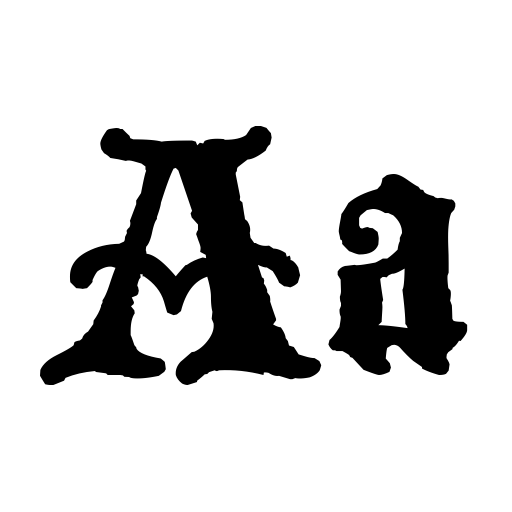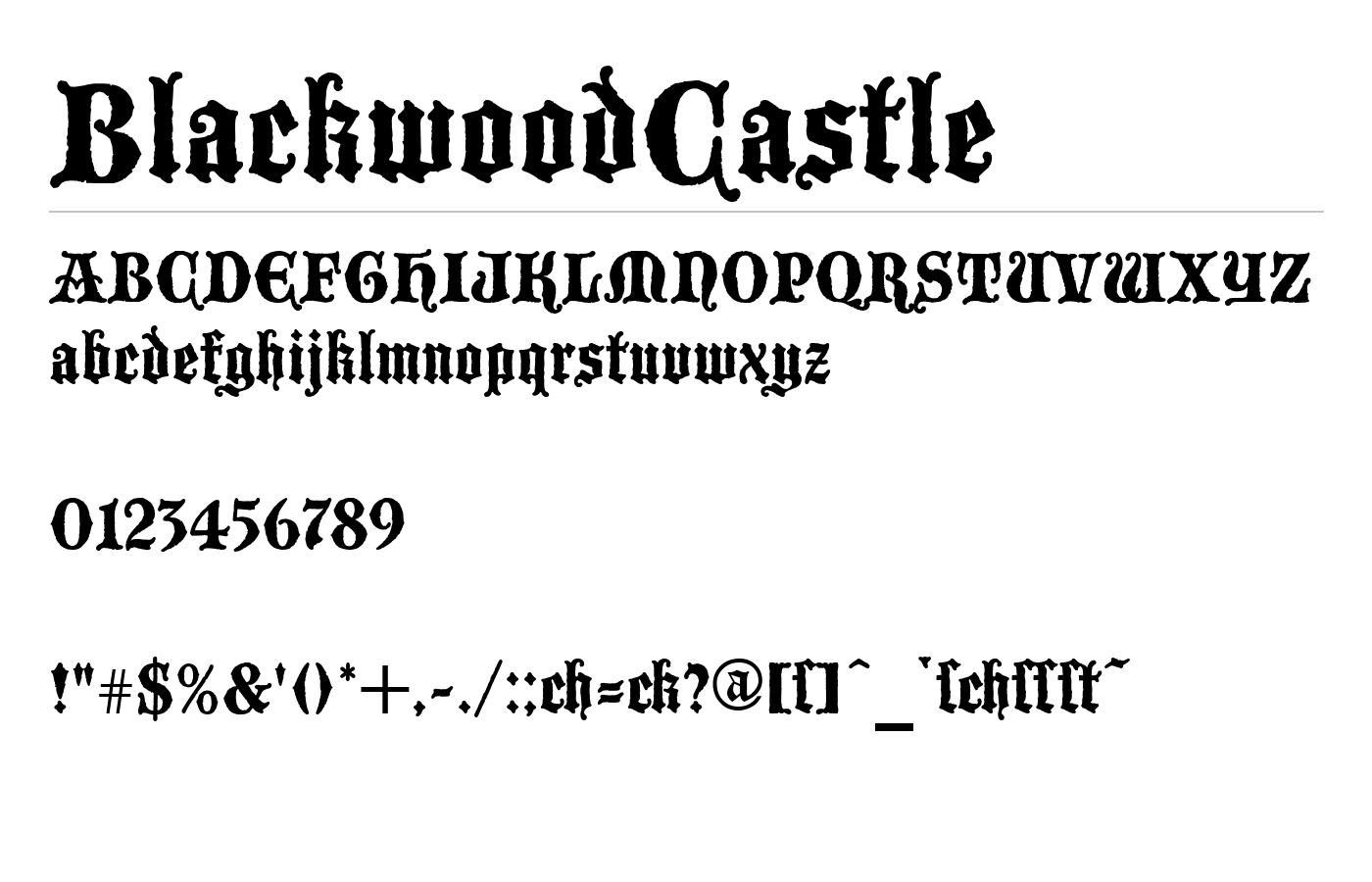
BlackwoodCastle is a bold, blackletter-style serif font with a historic and gothic character, featuring heavy, textured strokes and intricate ornamental details. Its dense letterforms and distinct medieval flair make it ideal for designs that seek a dramatic, vintage, or fantasy-inspired look, perfect for headlines, logos, and themed packaging that demand strong visual impact. This font exudes an atmospheric, classical mood that works especially well in branding related to heritage, mystery, or tradition.
BlackwoodCastle Font